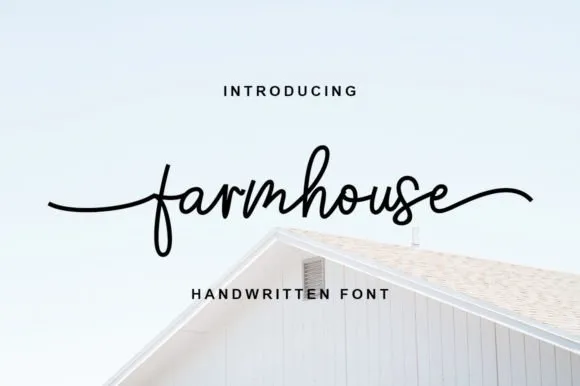
The Farmhouse Font is a credible written by hand text style with a heartfelt touch. Masterfully intended to be a genuine #1, this text style can possibly take your imaginative plans to the most elevated level
This text style is neat and looks perfect as a title or body text. This textual style would be ideally suited for the vast majority various plans for magazine titles, online entertainment, marking, wedding solicitations, cards, and so on.
The Farmhouse Font text style is PUA encoded, and that implies you can get to the glyphs in general and swashes effortlessly!